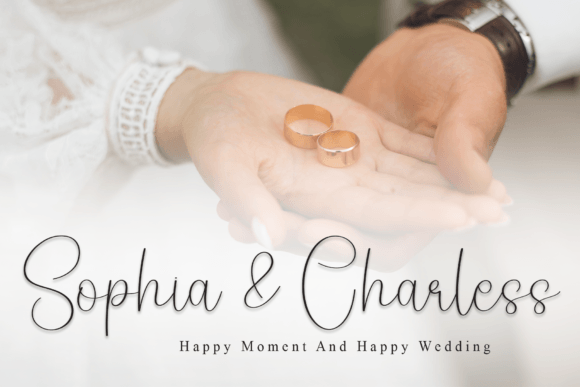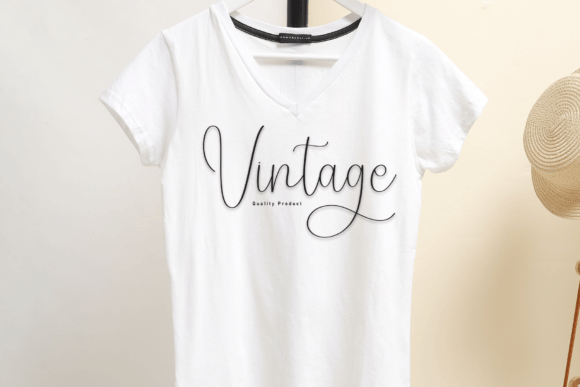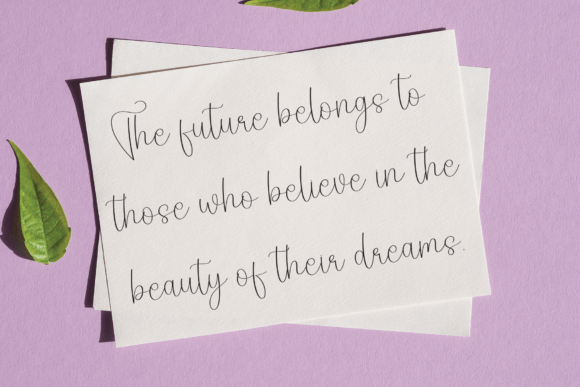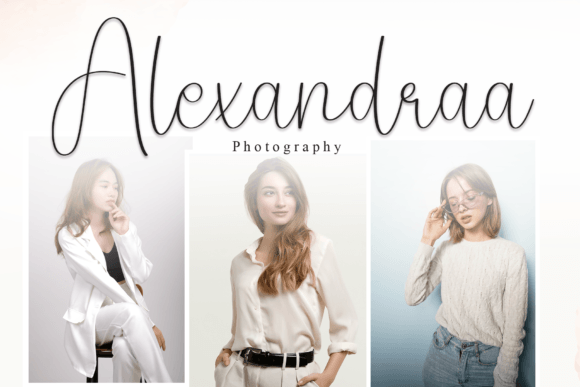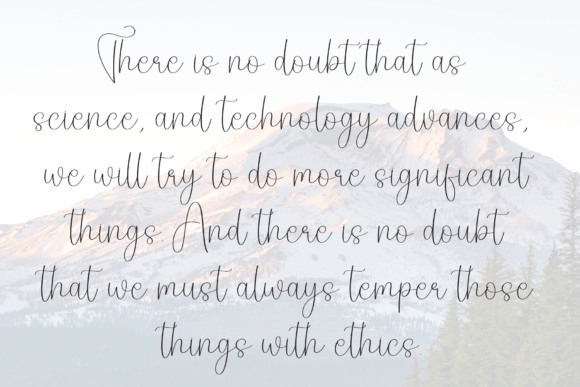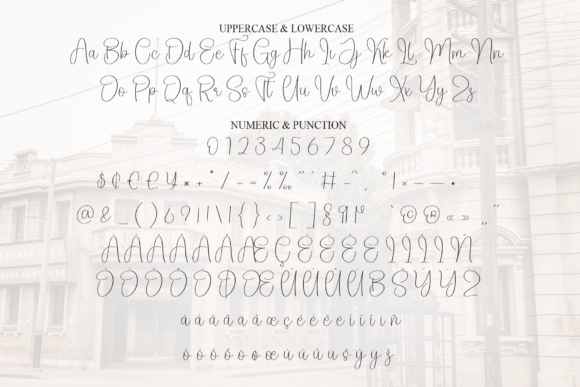
Introduction to College Retro Font
College Retro is a stylish, thin handwritten font with a vintage touch.
It looks elegant and fancy, perfect for adding a personal and classic feel to your designs .
Key Features of College Retro Font
Why Choose College Retro Font?